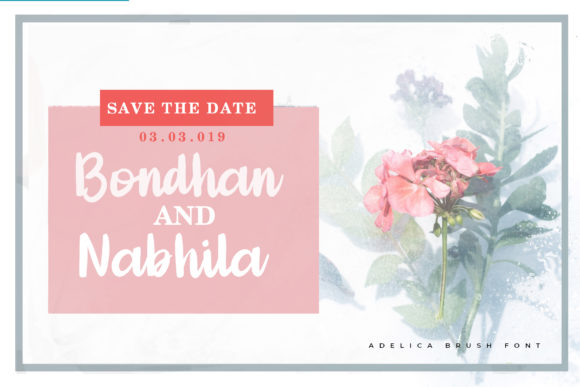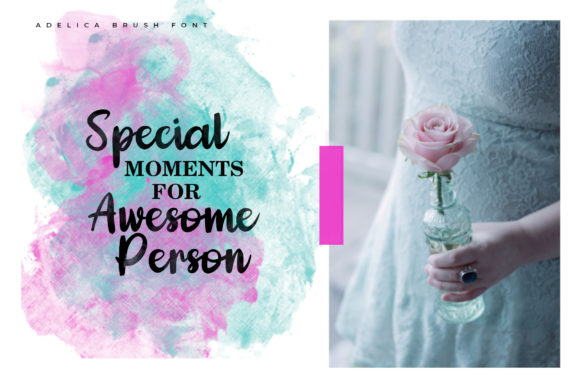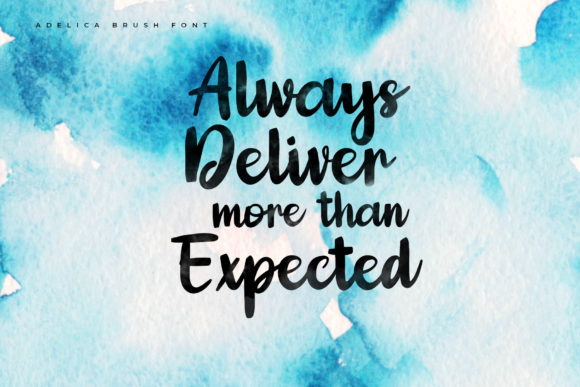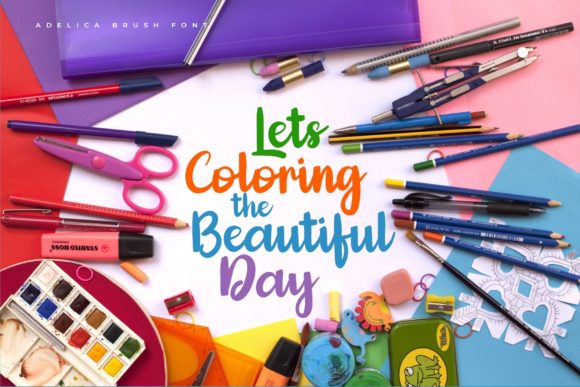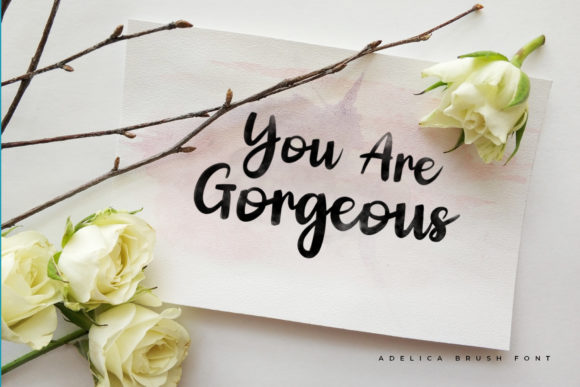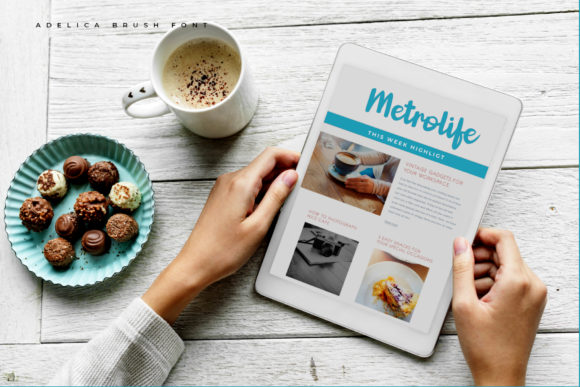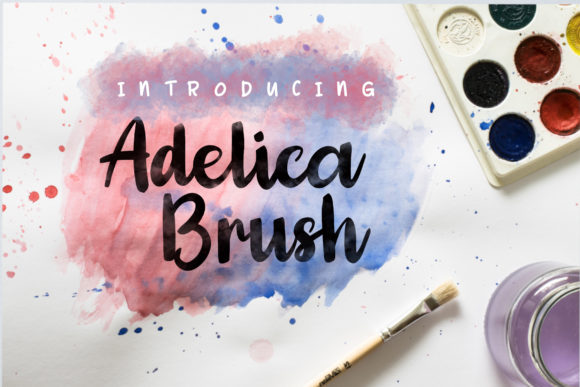
Introducing the Adelica Brush Font: A Fun and Feminine Watercolor Addition to Your Designs
The Adelica Brush font is a stunning brush script that can add a playful, feminine, and childish touch to your designs. With its unique watercolor effect, this font is perfect for crafters, designers, and artists looking to create beautiful and eye-catching projects. In this article, we’ll dive into the features and benefits of the Adelica Brush font, and explore how you can use it to elevate your designs.
The Unique Characteristics of Adelica Brush Font
The Adelica Brush font is a brush script that mimics the look of watercolor painting. Its irregular strokes, varying line widths, and soft edges give it a charming, hand-painted feel that’s perfect for creating a whimsical and romantic atmosphere in your designs. The font comes with a range of characters, including uppercase and lowercase letters, numbers, and punctuation marks, making it versatile and easy to use.
Features of Adelica Brush Font
• Watercolor Effect: The Adelica Brush font features a beautiful watercolor effect that gives your text a soft, blended look.
• Feminine and Childish: The font’s playful and irregular strokes make it perfect for designs that require a feminine and childish touch.
• Versatile: The font comes with a range of characters, making it suitable for a variety of design projects, from greeting cards to posters and social media graphics.
Benefits of Using Adelica Brush Font
The Adelica Brush font offers several benefits to designers and crafters. Here are a few:
• Adds a Personal Touch: The Adelica Brush font’s unique watercolor effect adds a personal touch to your designs, making them stand out from the crowd.
• Perfect for Branding: The font’s feminine and childish feel makes it perfect for branding projects that require a playful and approachable tone.
• Great for Crafting: The Adelica Brush font is ideal for crafters who want to add a personal touch to their projects, such as handmade cards, scrapbooking, and DIY crafts.
Design Ideas Using Adelica Brush Font
The Adelica Brush font is versatile and can be used in a variety of design projects. Here are some ideas to get you started:
• Greeting Cards: Use the Adelica Brush font to create beautiful and personalized greeting cards for special occasions.
• Posters and Flyers: Add a playful touch to your posters and flyers with the Adelica Brush font.
• Social Media Graphics: Use the font to create eye-catching social media graphics that showcase your brand’s personality.
• Handmade Crafts: Add a personal touch to your handmade crafts, such as scrapbooking, DIY jewelry, and home decor projects.
Tips for Using Adelica Brush Font
Here are some tips for using the Adelica Brush font effectively:
• Experiment with Colors: The Adelica Brush font looks great in a variety of colors, so don’t be afraid to experiment and find the perfect hue for your design.
• Use it Sparingly: Use the Adelica Brush font sparingly to add emphasis to your design. Overusing the font can make your design look cluttered and overwhelming.
• Pair it with Other Fonts: Pair the Adelica Brush font with other fonts to create a unique and visually appealing design.
Font Name Adelica Brush Font
Author JavaPep
The Adelica Brush font is a beautiful and versatile font that can add a fun, feminine, and childish touch to your designs. With its unique watercolor effect and range of characters, it’s perfect for designers and crafters looking to create beautiful and eye-catching projects. Whether you’re creating greeting cards, posters, or social media graphics, the Adelica Brush font is sure to elevate your designs and make them stand out from the crowd.